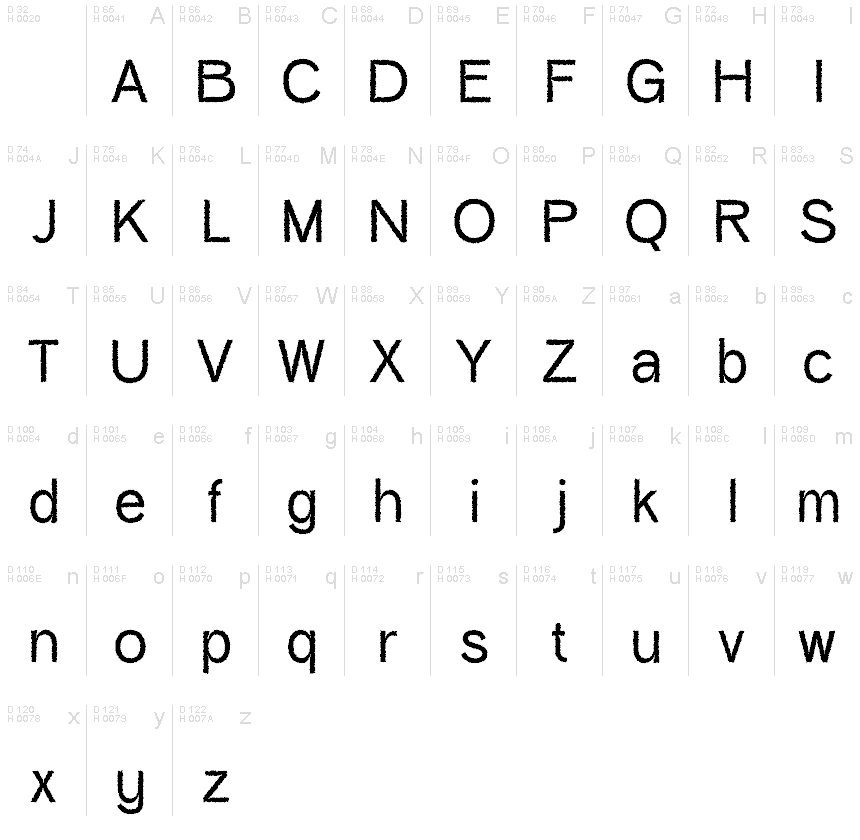
Raventy Rough Demo Regular
Raventy Rough font by Craft Supply Co. is a modern sans serif display font with an eroded, grunge aesthetic. The edgy appeal derives from the distressed texture applied randomly across the strokes which sometimes appears subtle and suddenly becomes intense. It is a casual style associated with minimal letters’ wideness containing no excess bulk at their edges.
The free Raventy Rough font reveals its versatility in headings, poster designs, vintage typography, greeting cards, packaging labels for foods or cosmetics, stationery items branding like business cards and envelopes etc. This is besides more general use in web/app development and publishing of magazines as well as newspapers.